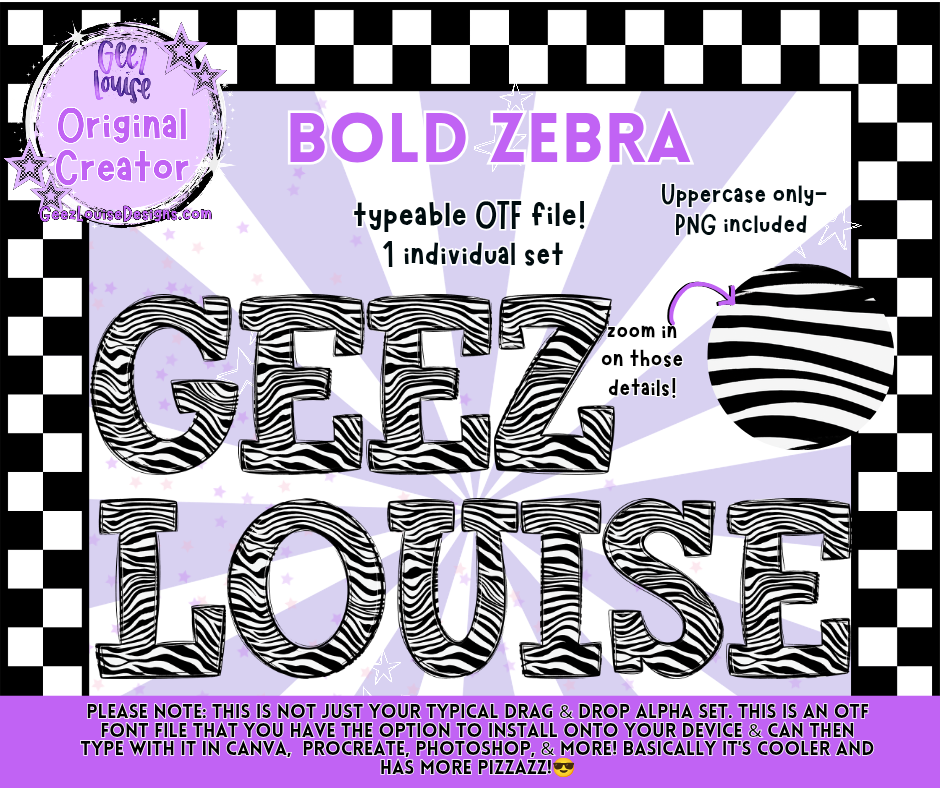
Bold Zebra (OTF Font + PNGs)
Say it loud, say it wild—Bold Zebra is here to stripe your designs with unapologetic flair. This uppercase-only OTF font from Geez Louise features a high-contrast zebra pattern that’s perfect for chaotic captions, bold branding, and merch that refuses to whisper.
Why it slaps: This alpha isn’t just drag-and-drop—it’s installable, typeable, and built for boutique chaos. Zoom in on those stripes… they’re giving maximalist magic.